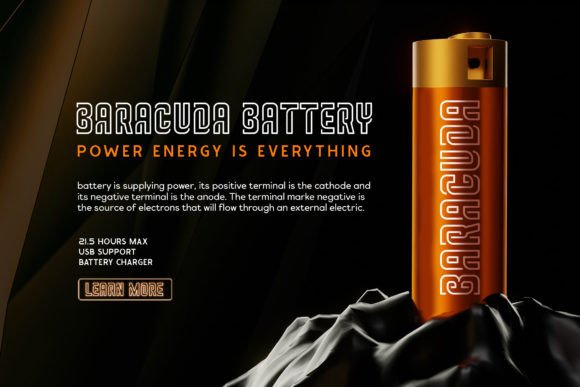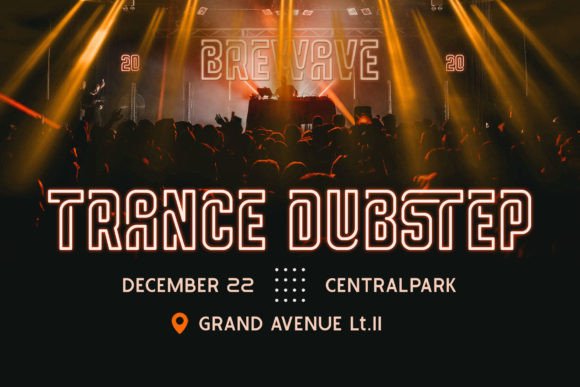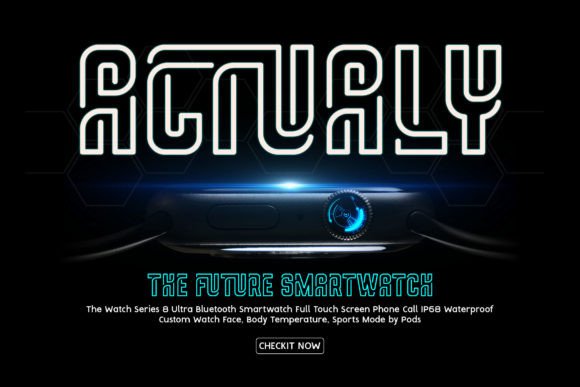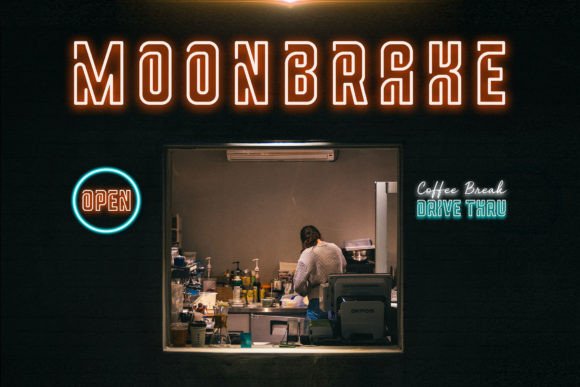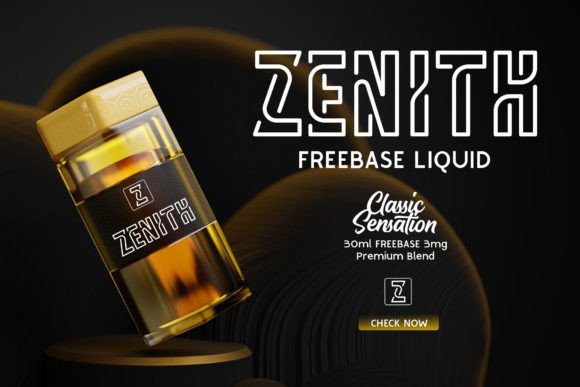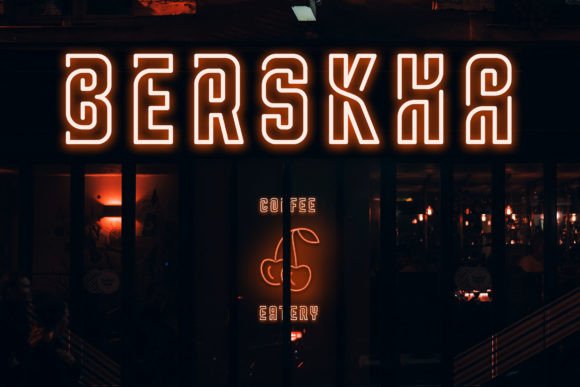
Brewave Font: The Ultimate Techno Outline Font for Modern Designers
In the world of design, fonts play a crucial role in conveying the message and tone of a project. With the numerous font options available, it can be overwhelming to choose the perfect one. However, if you’re looking for a font that exudes a techno vibe and is perfect for a wide range of projects, look no further than Brewave Neon. In this article, we’ll dive into the world of Brewave Font and explore its features, uses, and benefits for designers and crafters.
What is Brewave Neon?
Brewave Neon is a techno outline font that is designed to add a touch of modernity and edginess to your projects. Its unique outline style and neon-like appearance make it perfect for designs that require a bold and futuristic look. Whether you’re working on a logo branding project, editorial design, or a music poster, Brewave Neon is sure to make your design stand out.
Features of Brewave Font
Brewave Neon comes with a range of features that make it a versatile and practical font for designers. Some of its key features include:
- Techno Outline Style: Brewave Neon’s outline style is perfect for designs that require a bold and futuristic look.
- Neon-Like Appearance: The font’s neon-like appearance adds a touch of modernity and edginess to your designs.
- Wide Range of Uses: Brewave Neon is perfect for a wide range of projects, including logo branding, editorial design, stationery design, sport design, 80s retro design, game industry, music poster, blog design, modern advertising design, card invitation, art quote, home decor, book/cover title, special events, and more.
Uses of Brewave Font
Brewave Neon is a versatile font that can be used for a wide range of projects. Here are some of the most popular uses of Brewave Font:
- Logo Branding: Brewave Neon is perfect for logo branding projects that require a bold and modern look.
- Editorial Design: The font’s outline style and neon-like appearance make it perfect for editorial designs, such as magazine covers and article headers.
- Stationery Design: Brewave Neon can be used to create modern and stylish stationery designs, including business cards, letterheads, and envelopes.
- Sport Design: The font’s bold and futuristic look makes it perfect for sport designs, such as jerseys, logos, and promotional materials.
- 80s Retro Design: Brewave Neon’s neon-like appearance makes it perfect for 80s retro designs, including posters, flyers, and social media graphics.
- Game Industry: The font’s modern and edgy look makes it perfect for game industry projects, including game titles, logos, and promotional materials.
- Music Poster: Brewave Neon is perfect for music posters, including concert posters, album covers, and music flyers.
- Blog Design: The font’s clean and modern look makes it perfect for blog designs, including blog headers, titles, and section headings.
- Modern Advertising Design: Brewave Neon can be used to create modern and stylish advertising designs, including print ads, digital ads, and social media ads.
Benefits of Using Brewave Font
There are several benefits to using Brewave Neon for your design projects. Some of the key benefits include:
- Unique and Modern Look: Brewave Neon’s outline style and neon-like appearance give your designs a unique and modern look that is sure to stand out.
- Versatility: The font’s versatility makes it perfect for a wide range of projects, from logo branding to music posters.
- High-Quality Design: The font is designed to high-quality standards, ensuring that your designs look professional and polished.
In conclusion, Brewave Neon is a techno outline font that is perfect for designers and crafters looking for a modern and edgy font for their projects. Its unique outline style and neon-like appearance make it perfect for a wide range of designs, from logo branding to music posters. With its versatility, ease of use, and high-quality design, Brewave Neon is sure to become a staple in your font collection.